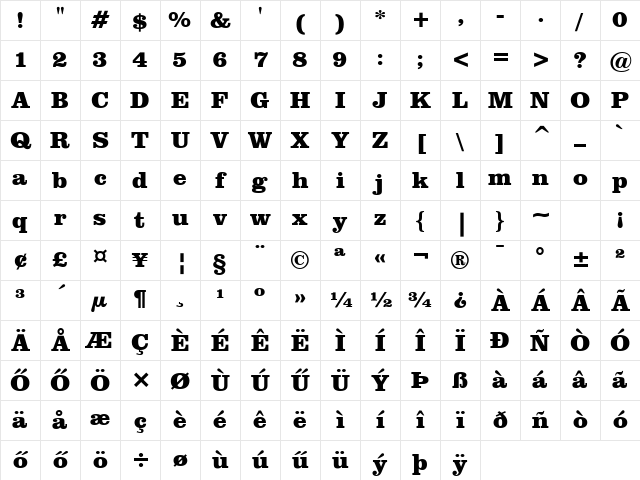
Clarendon BlHU features prominent, blocky serifs that give it a confident, grounded presence - equally at home in editorial settings and bold branding work.
Pro Tip: Use Clarendon BlHU for headlines and subheadings where its slab serifs can make an impression. It also holds up well in mid-size body copy thanks to its sturdy construction.